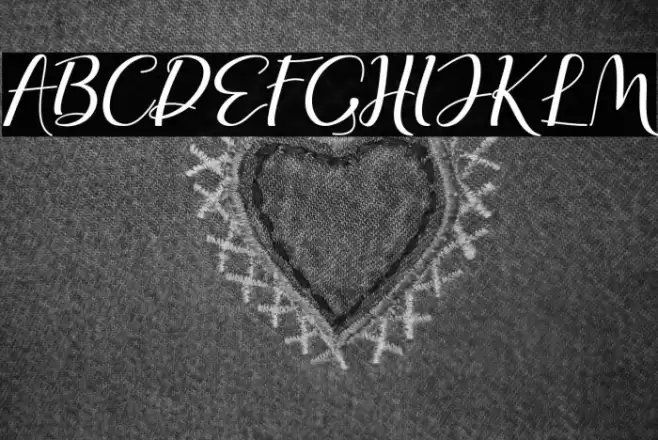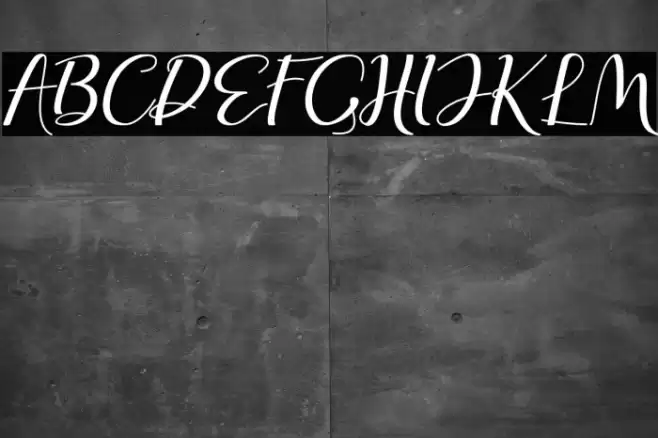
LovelyNatasya Font
LovelyNatasya Description
This font exudes elegance and fluidity, characterized by its cursive, handwritten style. The uppercase letters are tall and graceful, with sweeping curves and delicate loops that give a sense of movement and sophistication. The lowercase letters maintain a consistent flow, with smooth connections between each character, enhancing the script's natural and organic appearance. The numerals are well-integrated, maintaining the same elegant style, while the special characters add versatility to the font's use. Overall, the font's design is both artistic and functional, making it suitable for a variety of creative applications.
An elegant, cursive script font with fluid, graceful strokes from Uncategorized fonts.
- Font: LovelyNatasya
- Proposed Projects: Ideal for wedding invitations, greeting cards, branding, and elegant logo designs.
- Overall Style: Elegant, Decorative
- Use Case: Logos, Invitations, Decorative text